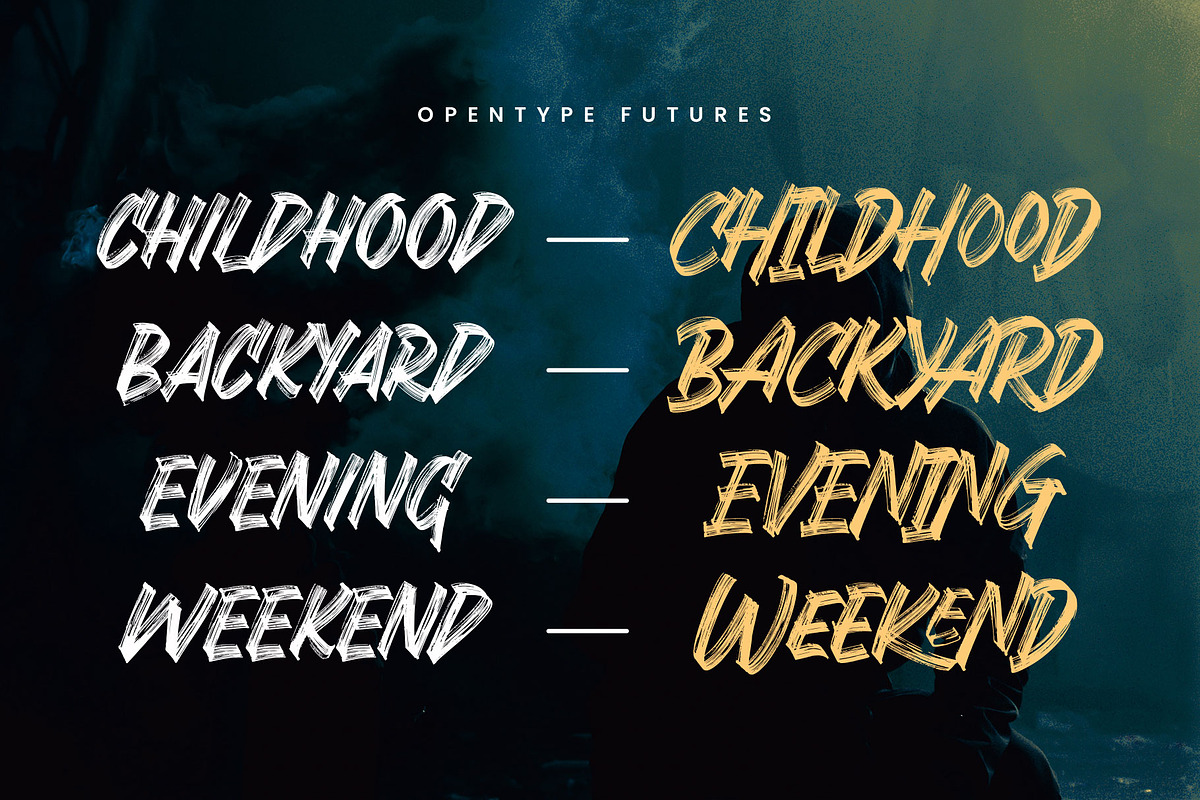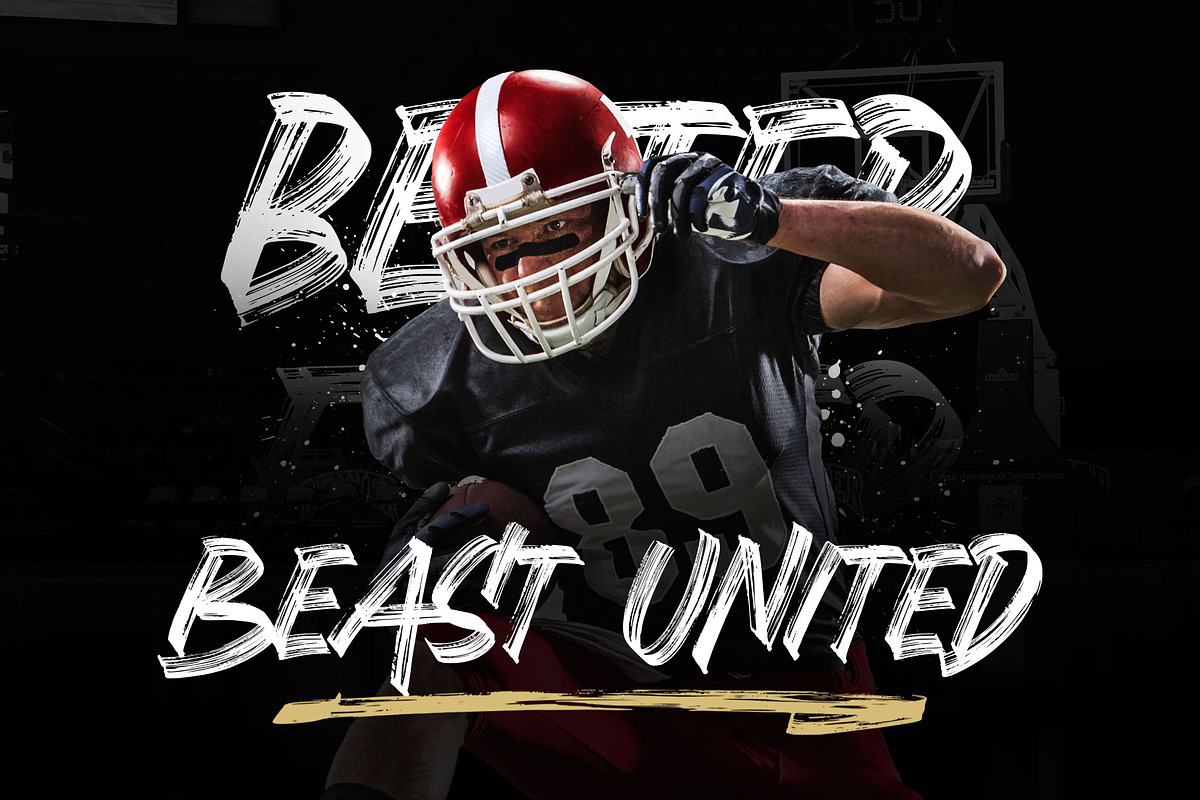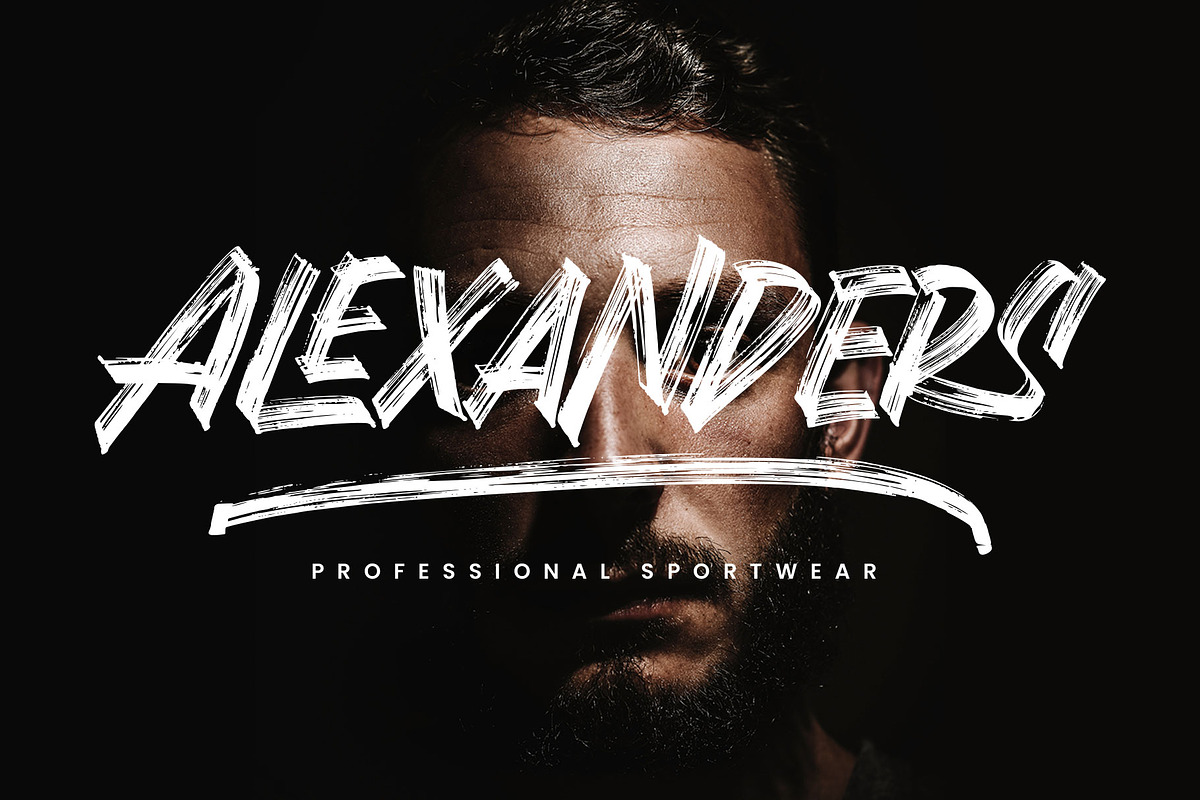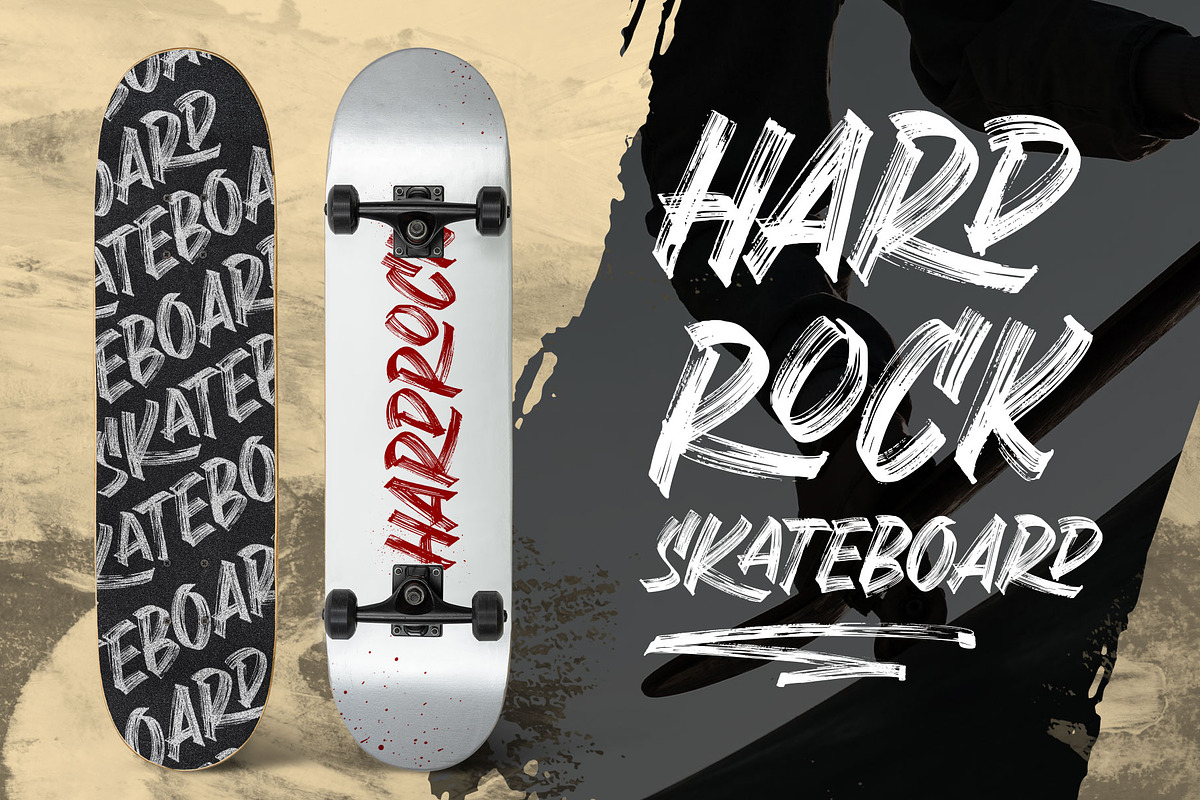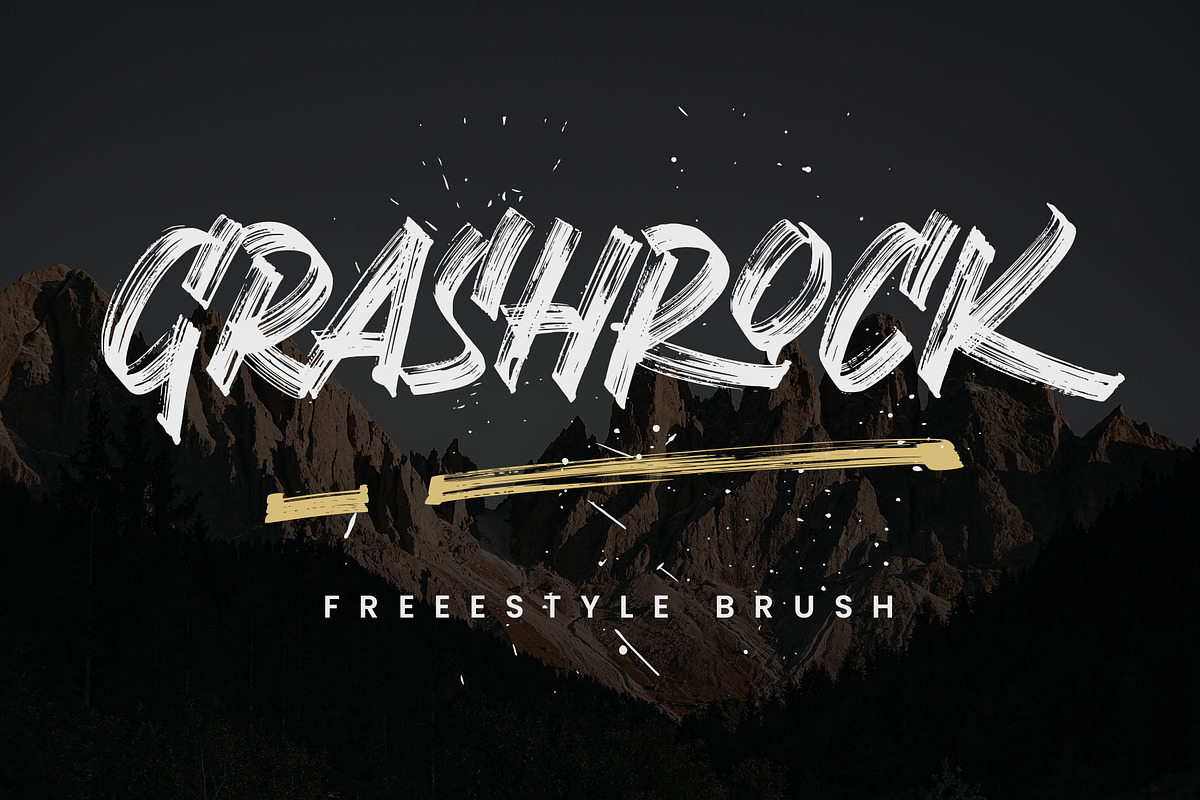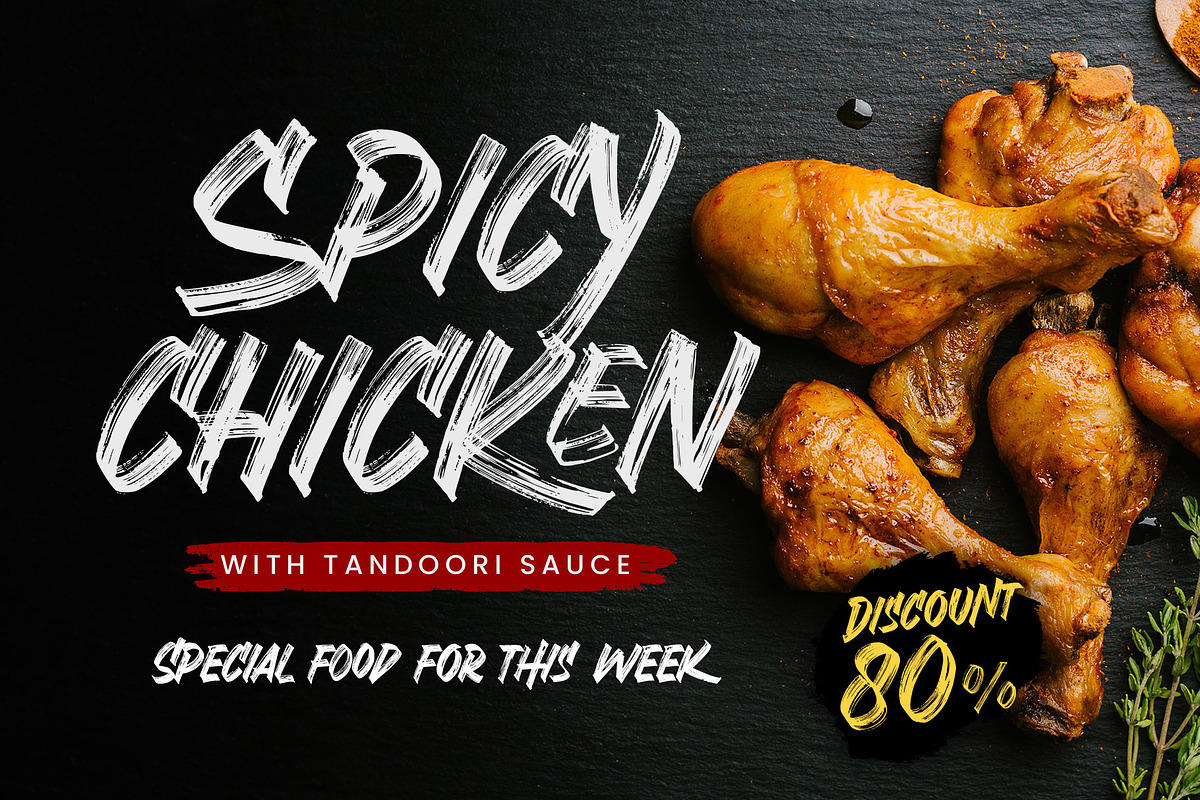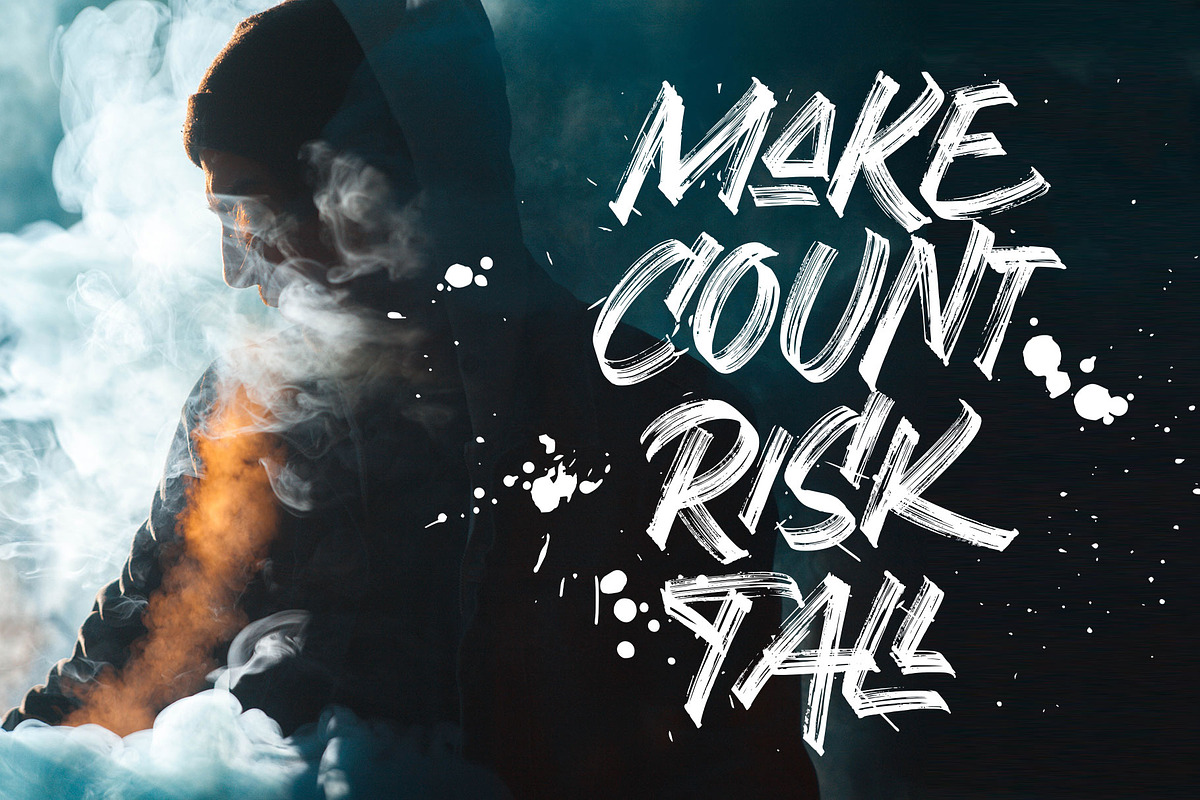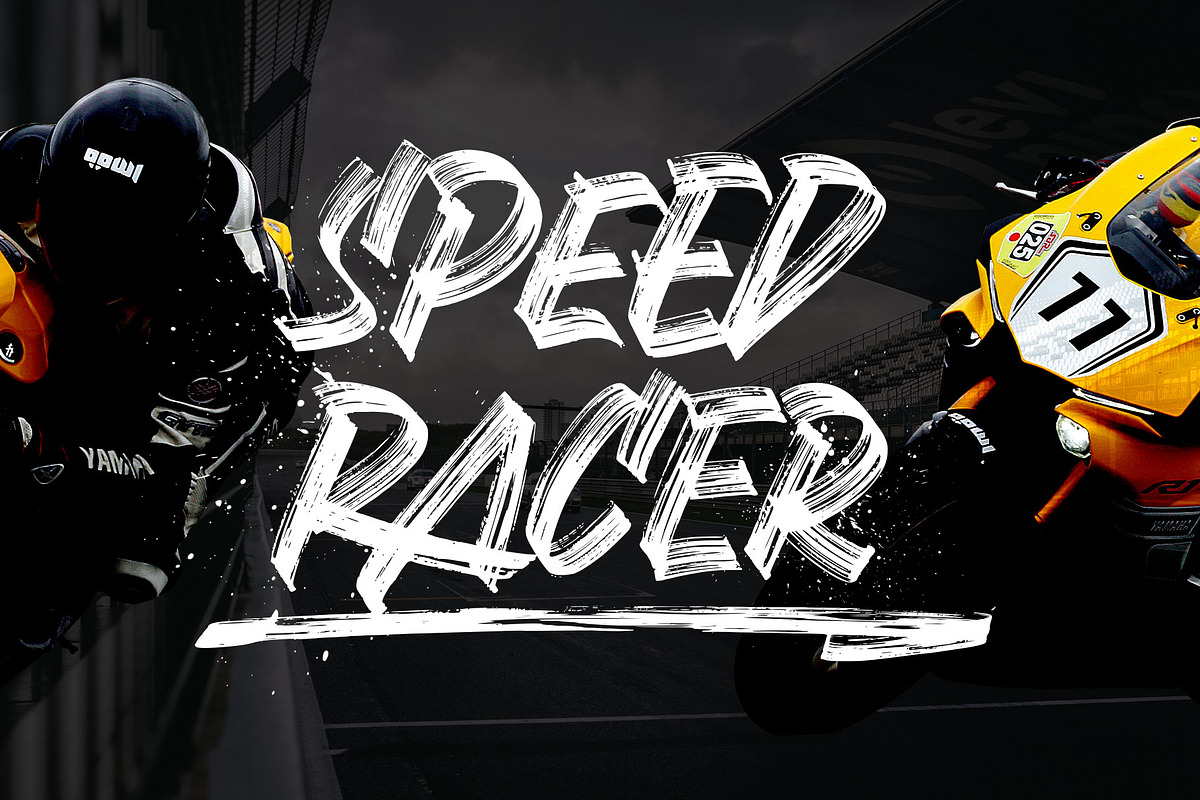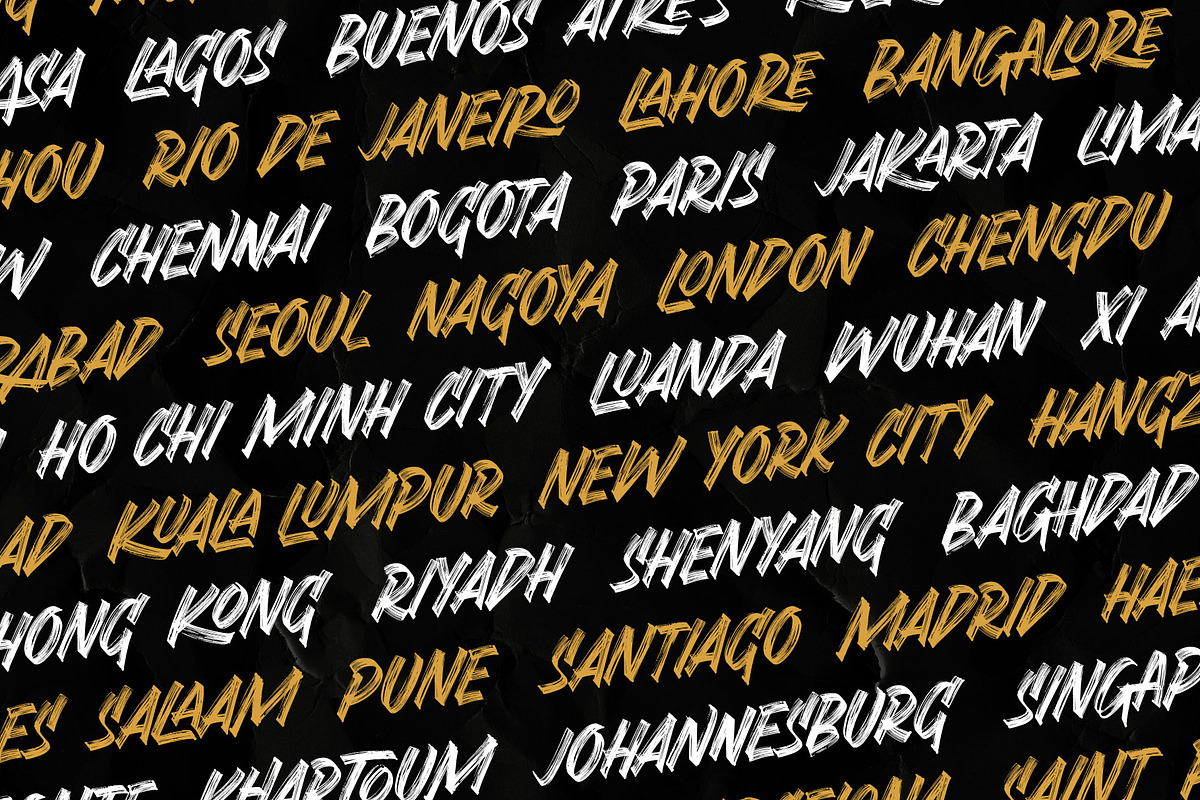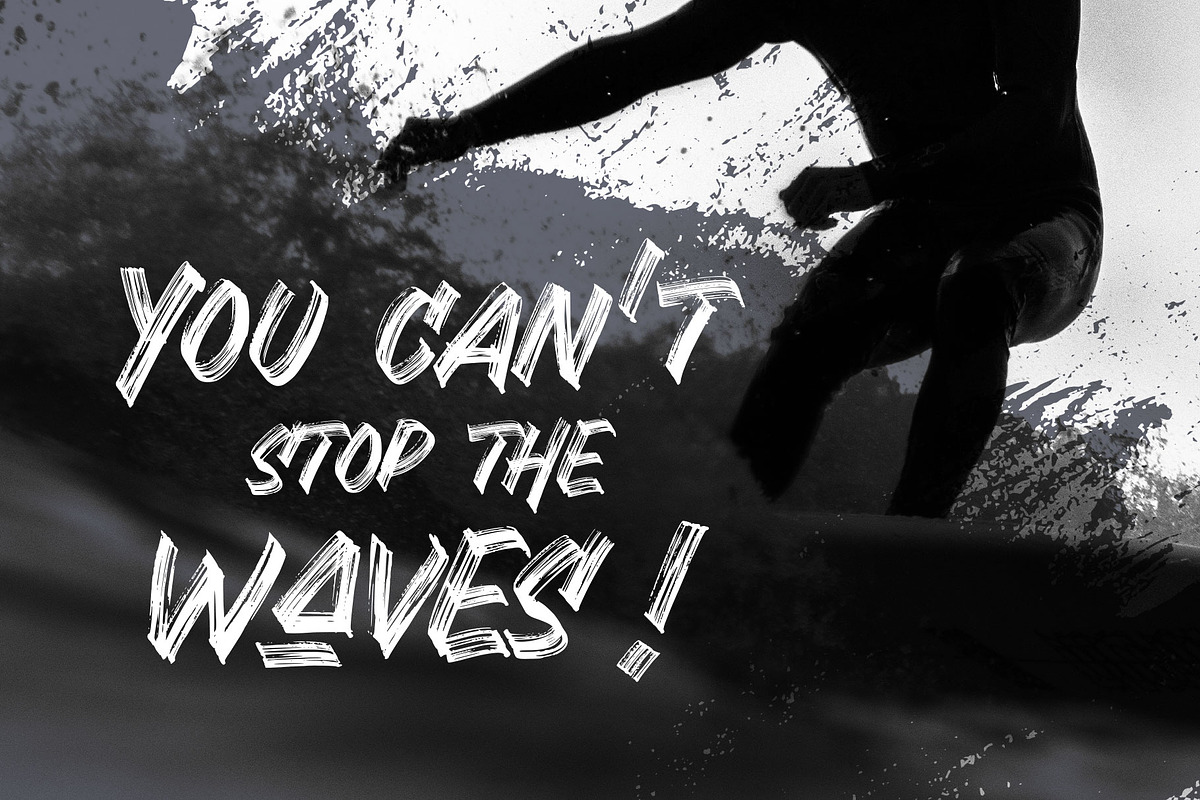
Grashrock - Freestyle brush
Grashrock is a fast font, with an aggressive motion of the brush strokes. Designed with high attention to detail of the brush, Grashrock inspires you to create a dynamic design in which the font is all-caps, giving you many options to mix and match the letters.
Grashrock is a strong font, fast, brave, and confident. Equipped with alternates characters, ligatures, and swashes. Perfect for display on your shirts, cards, flyers, quotes, logotype, books, decals, and many more!
- Smallcaps
- Stylistic alternates
- Multilingual support.